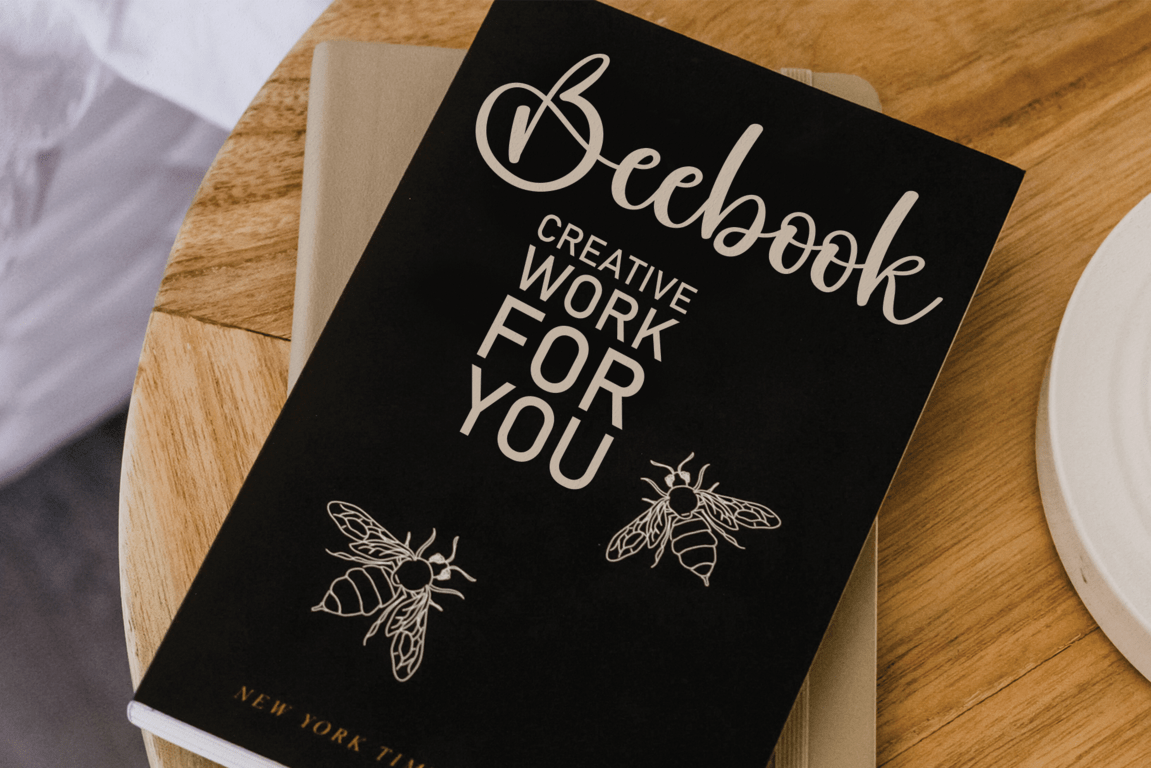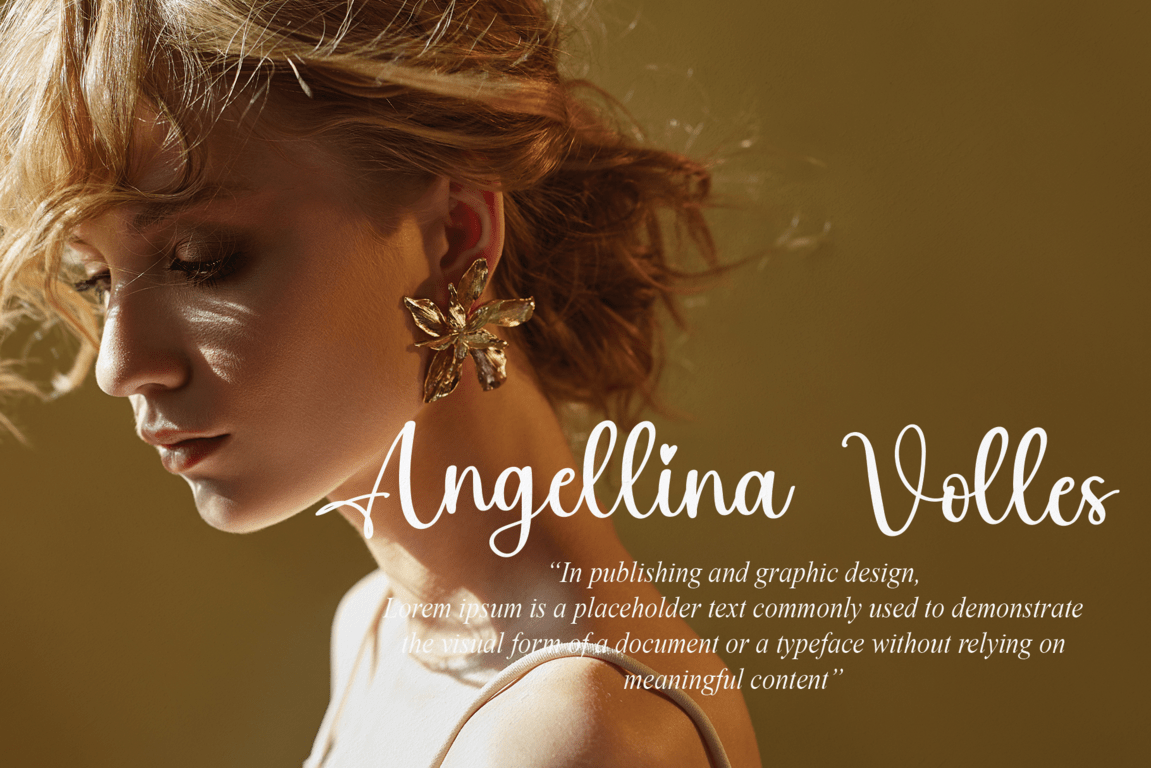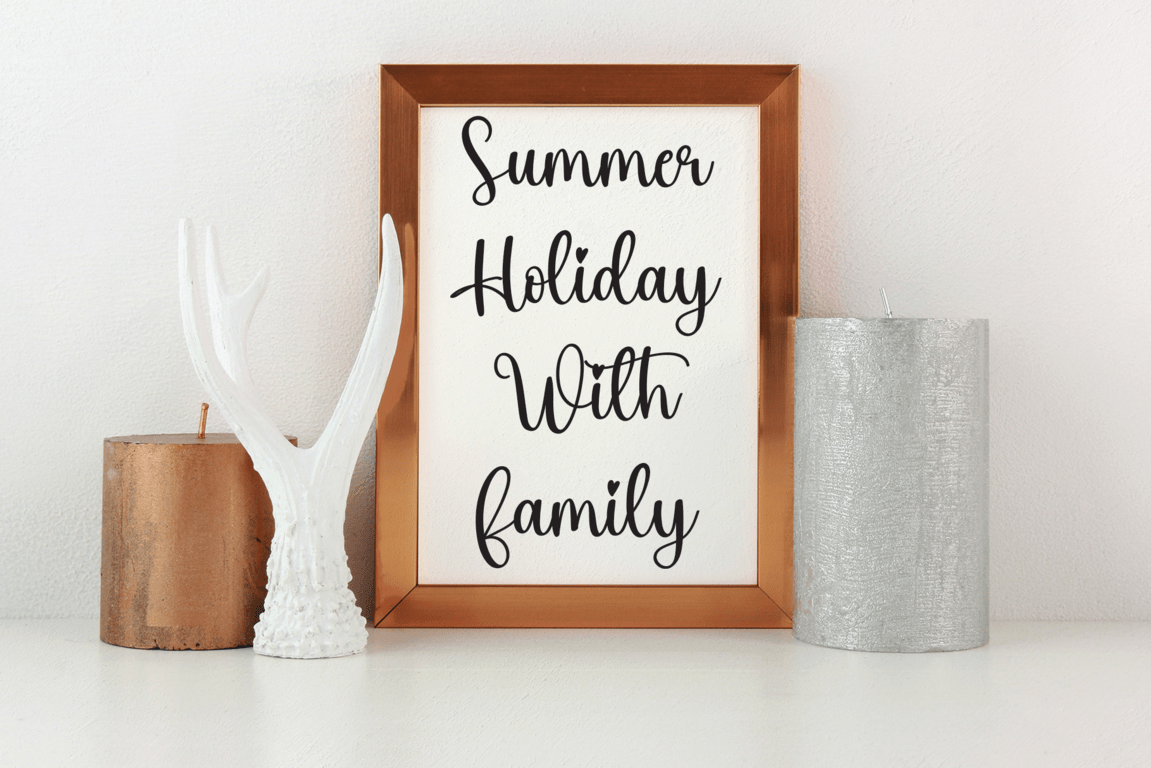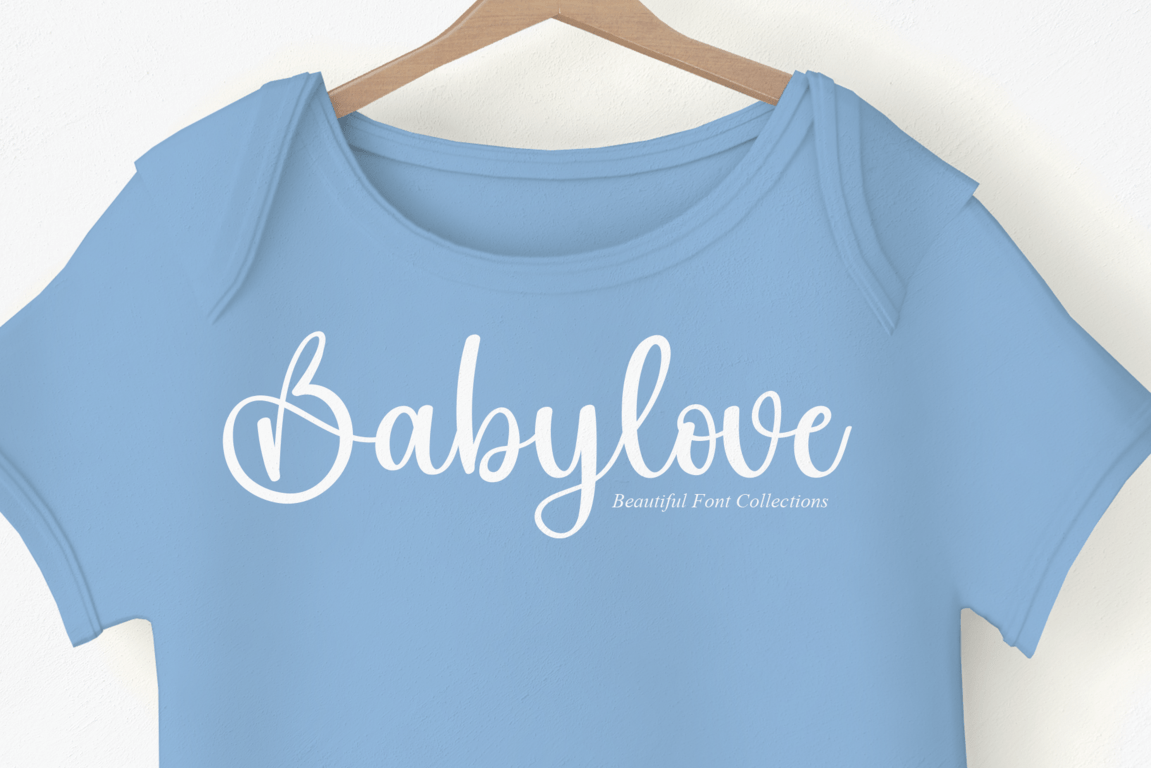
Buttercake Typeface
Buttercake Script Typeface is an exquisite handwritten font, masterfully designed to become a true favorite. It maintains its classy calligraphic influences while feeling contemporary and fresh. Fall in love with it and bring your projects to the highest levels!